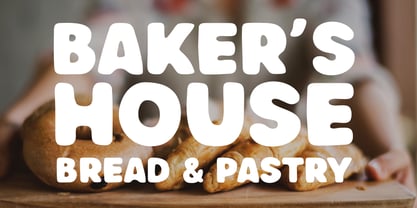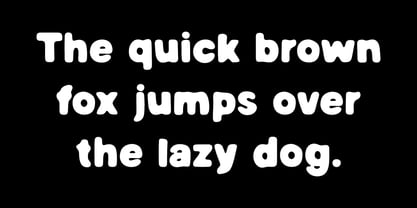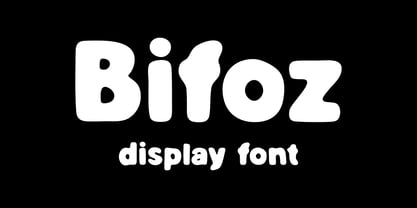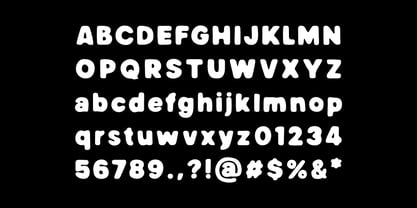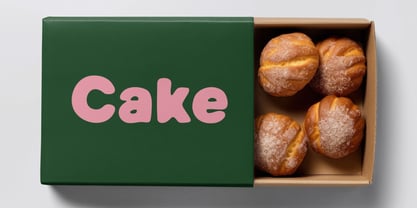
Bifos
by ESEM Type
The Bifos Font Family was designed by Szymon Mandziarz and published by ESEM Type. Bifos contains 1 styles. More about this family
Bifoz is a simplified font, distinguished by its bold structure and rounded corners. Bifoz Display font is ideal for graphic designs with an intriguing style. The font will work well in poster design, branding, logo design and clothing branding.
Designers: Szymon Mandziarz
Foundry: ESEM Type